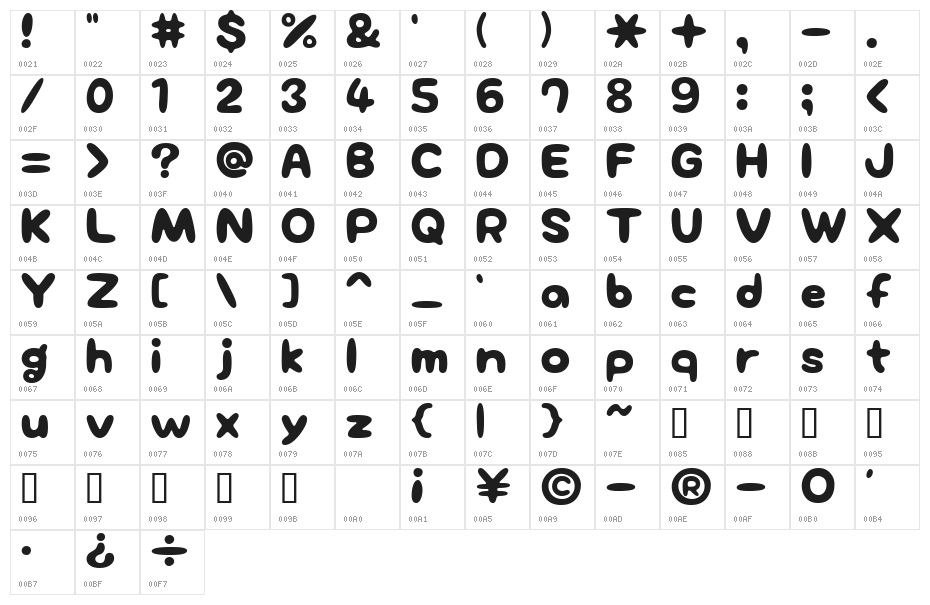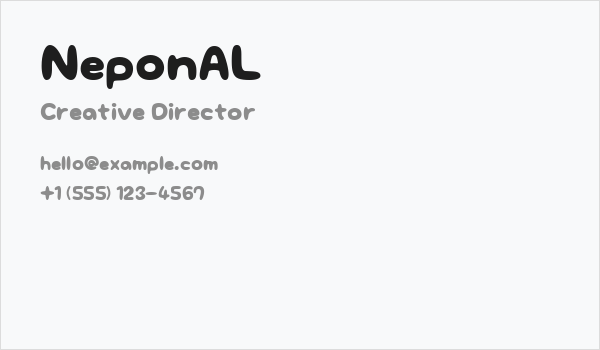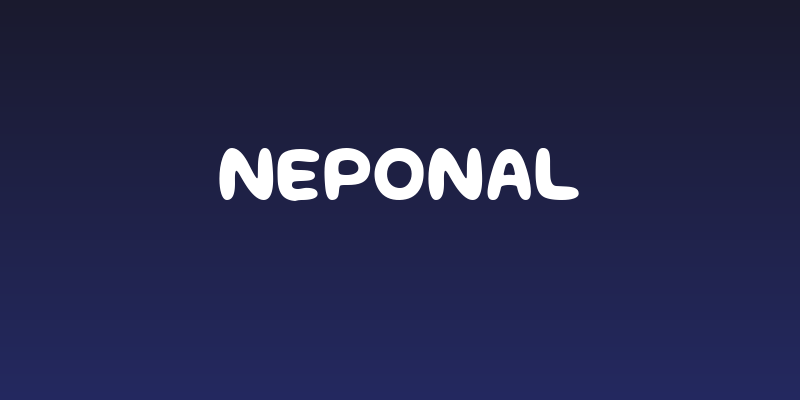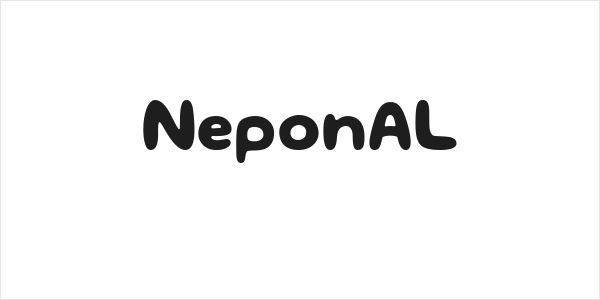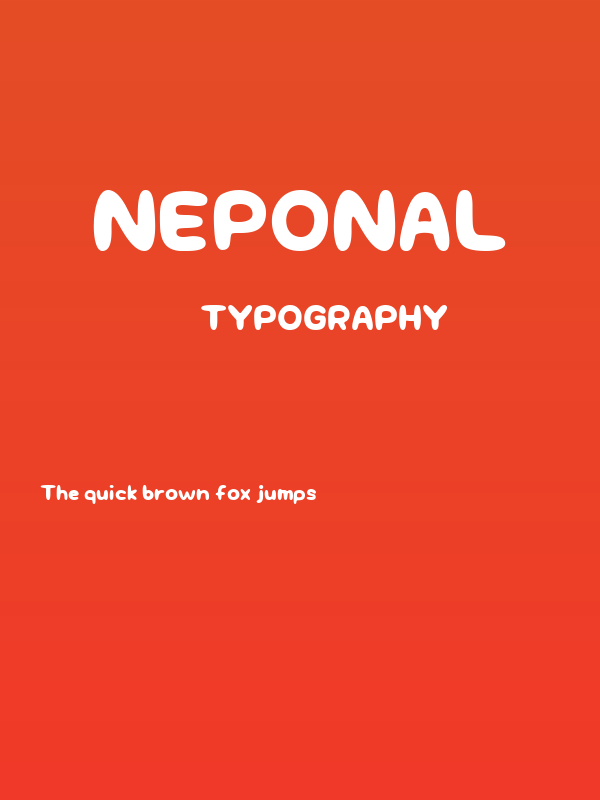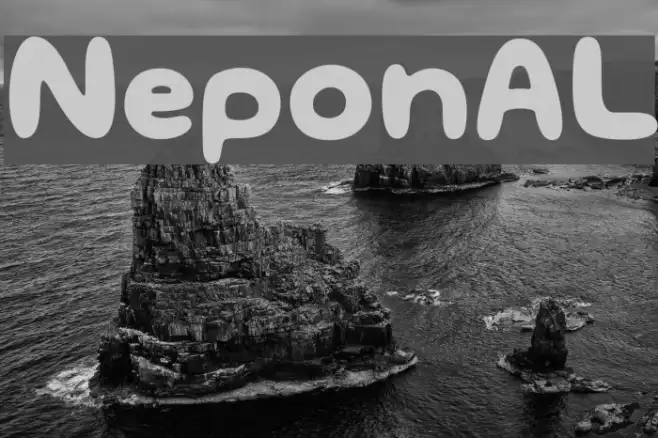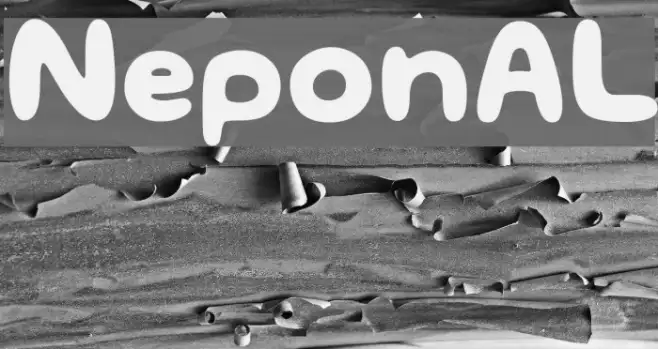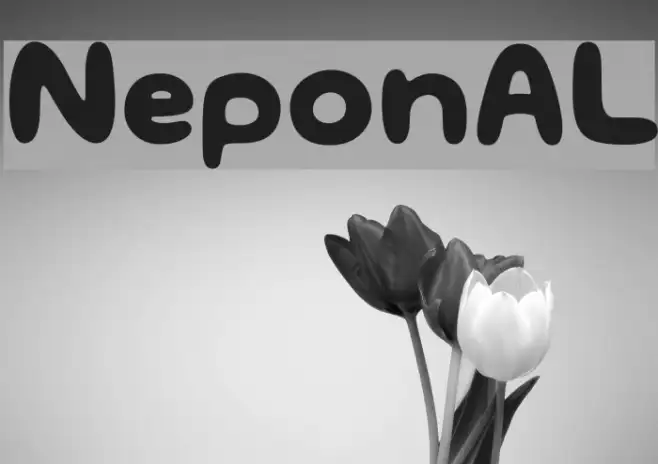
NeponAL Font
NeponAL Description
This playful and bold font features rounded, bubbly characters that convey a sense of fun and approachability. The letters are thick and uniform, with a consistent stroke width that gives the font a cohesive look. The rounded edges and lack of sharp angles contribute to its friendly and informal appearance. This style is reminiscent of hand-drawn or cartoon-like fonts, making it ideal for projects that require a lighthearted and whimsical touch. The numbers and special characters maintain the same playful aesthetic, ensuring a harmonious design across different text elements.
| Proposed Projects | Ideal for children's books, playful branding, posters, and social media graphics. |